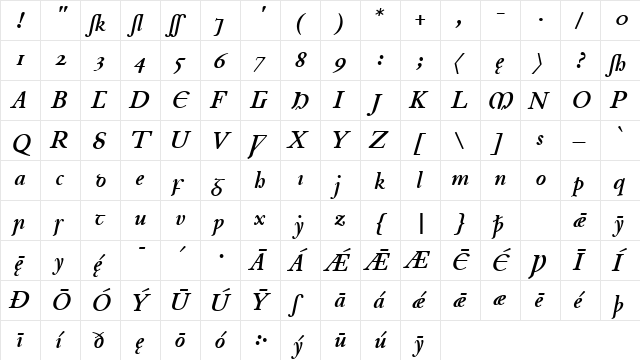
Junius BoldItalic
Design Context for Junius Typeface
Junius is a composed and adaptable typeface that performs quietly and consistently across a wide range of design contexts. Its italic angle brings a sense of urgency and motion to the letterforms. The heavy weight commands attention and anchors typographic hierarchies.
Pro Tip: Try Junius for annotation and caption copy alongside an upright companion — the contrast in angle creates a dynamic but ordered typographic system.